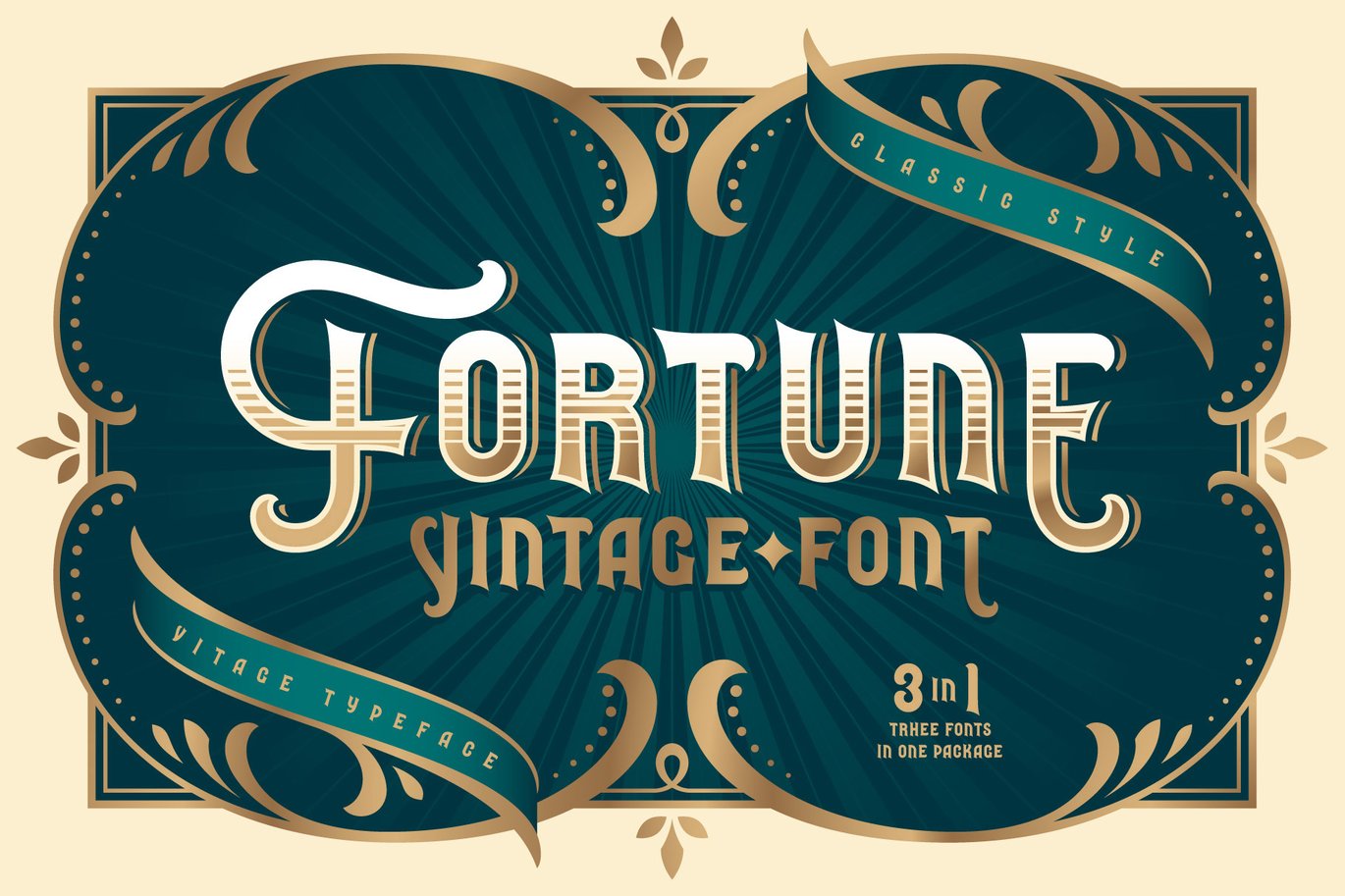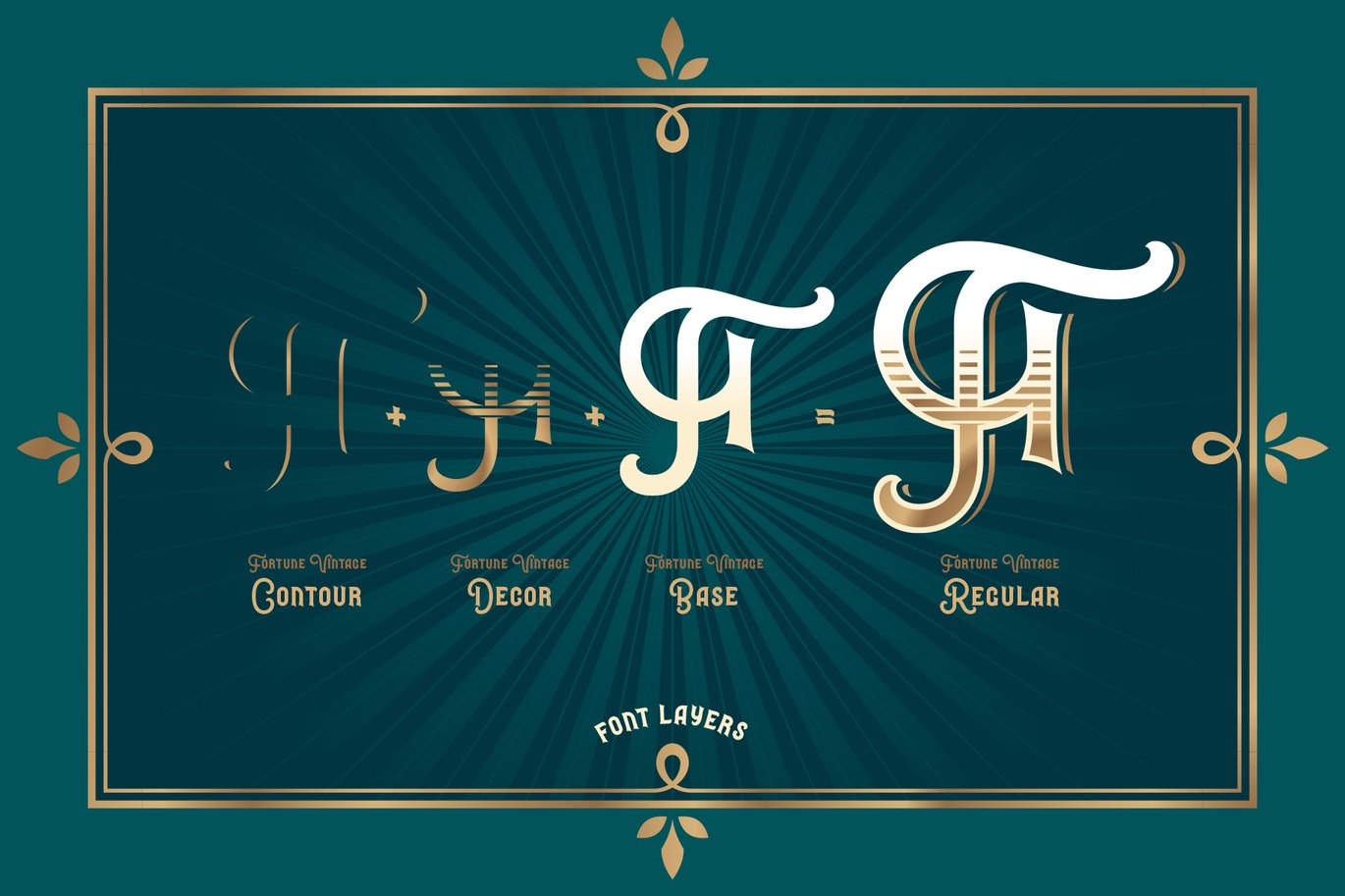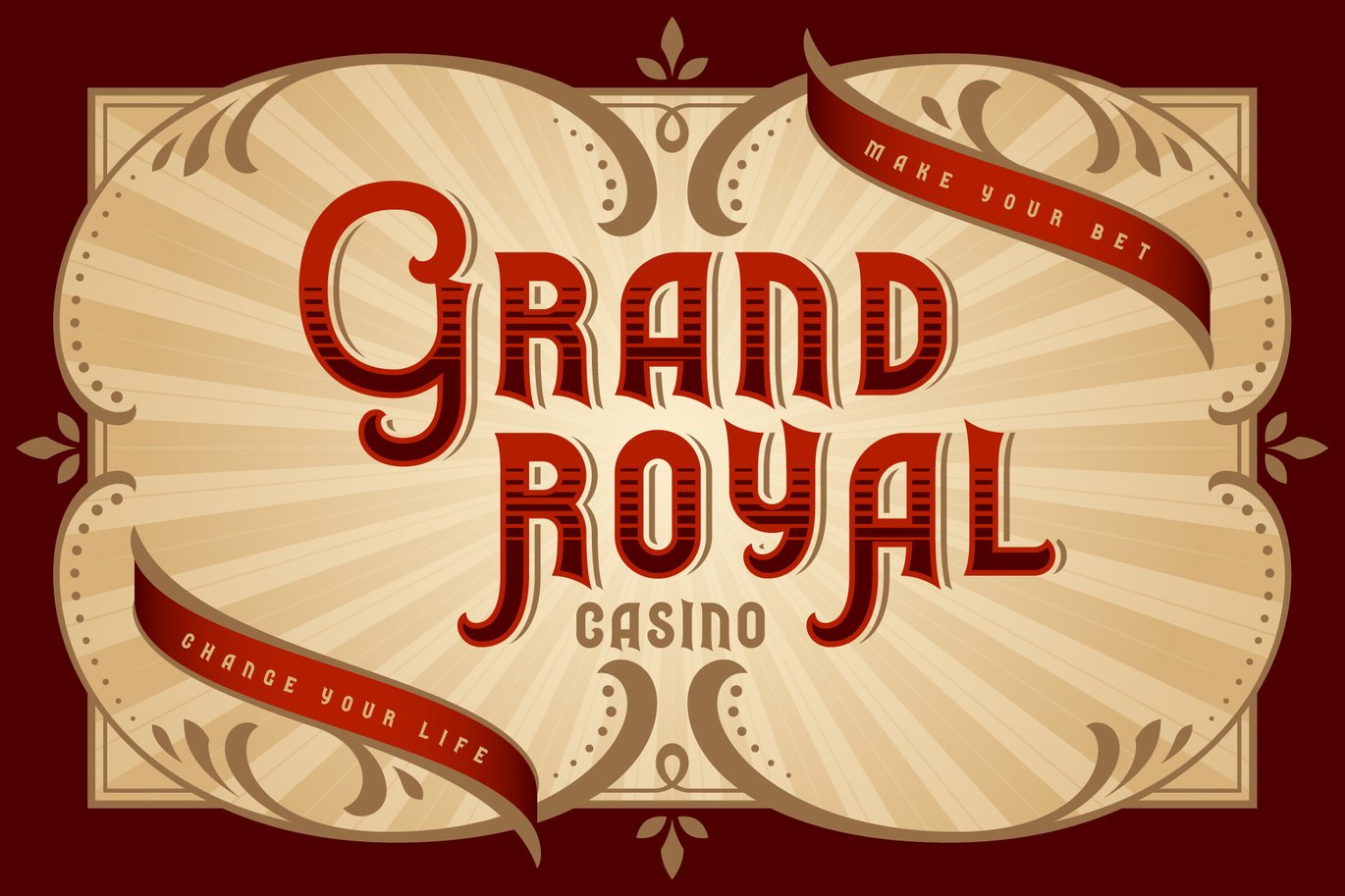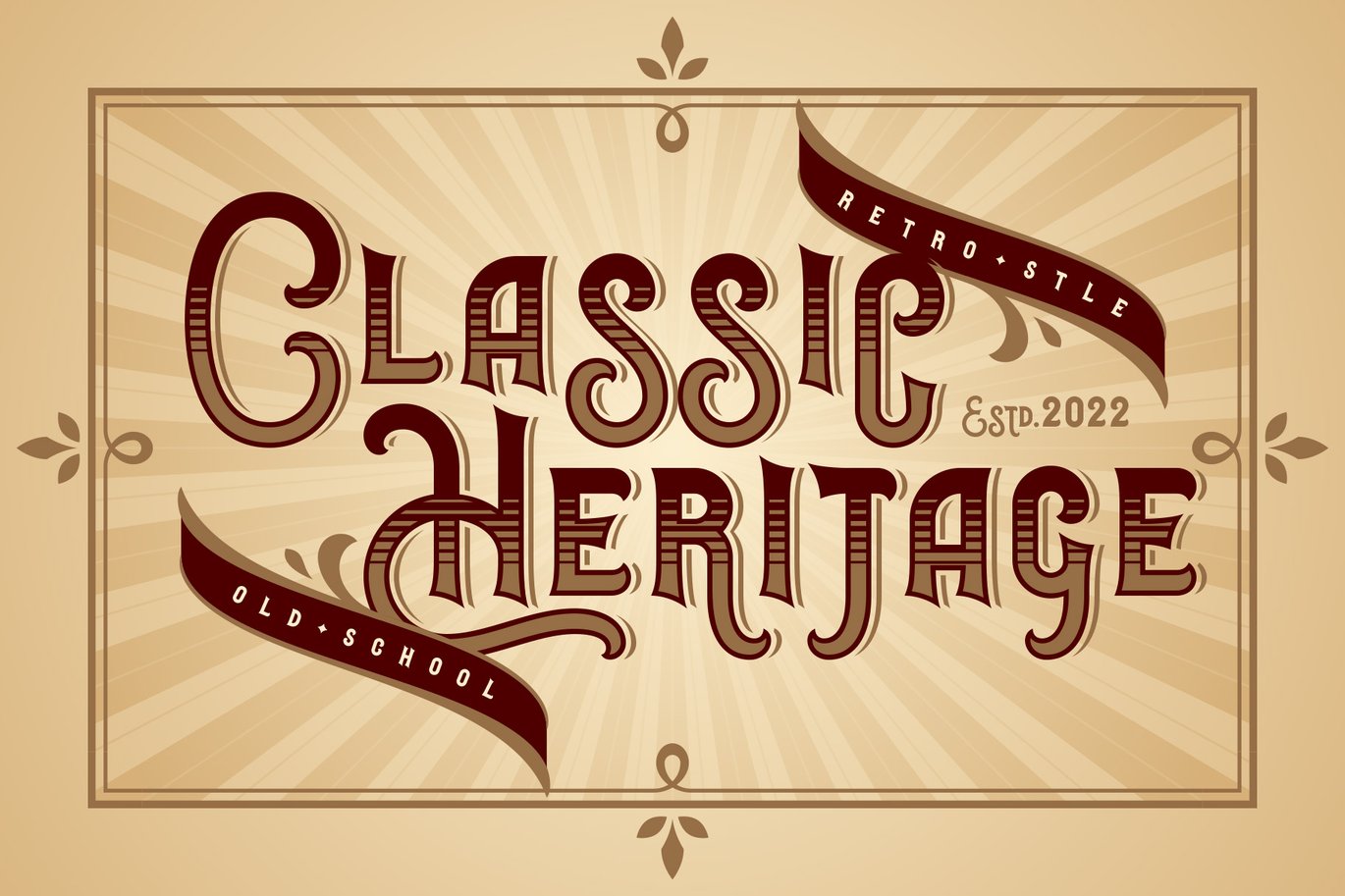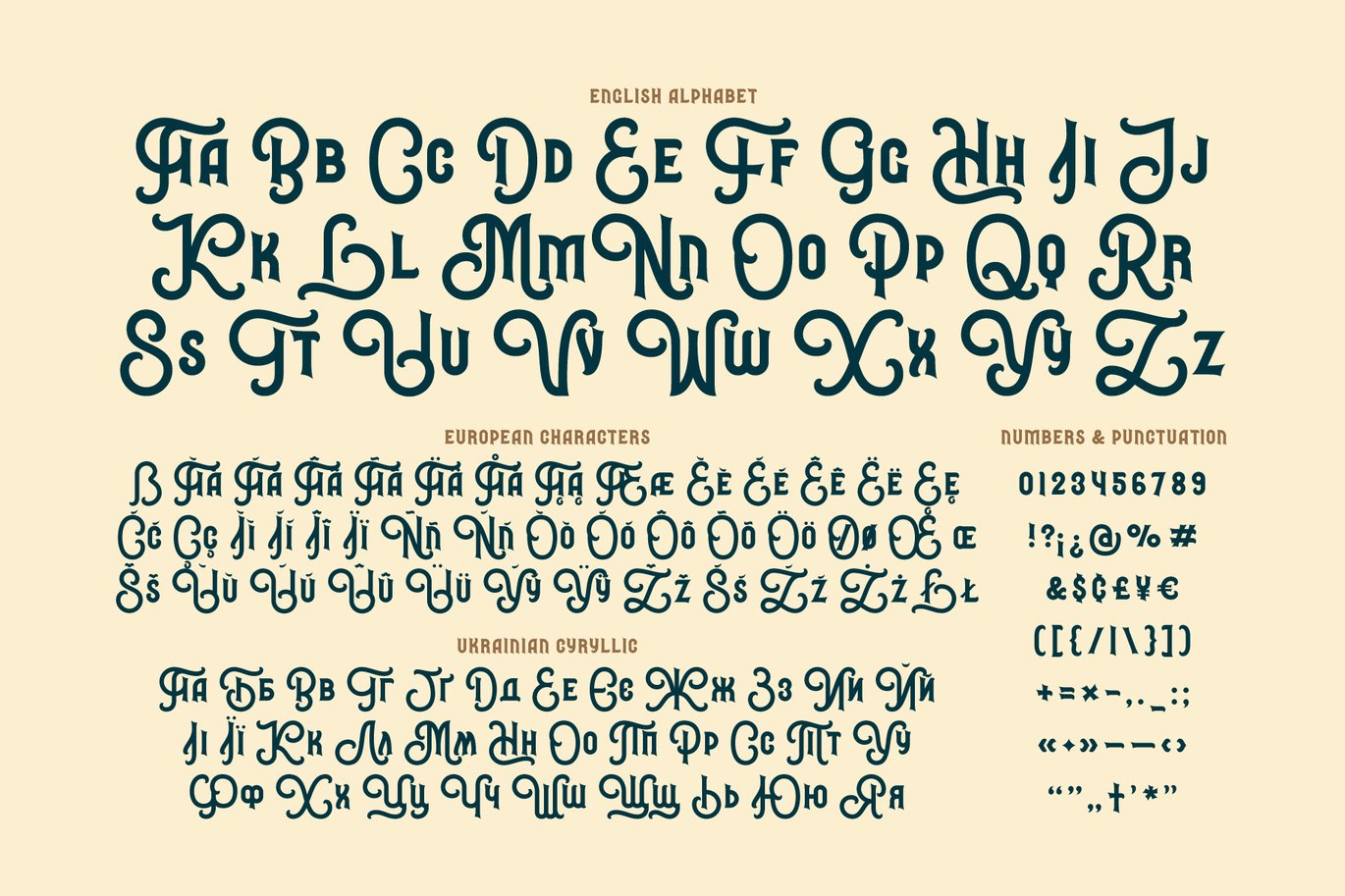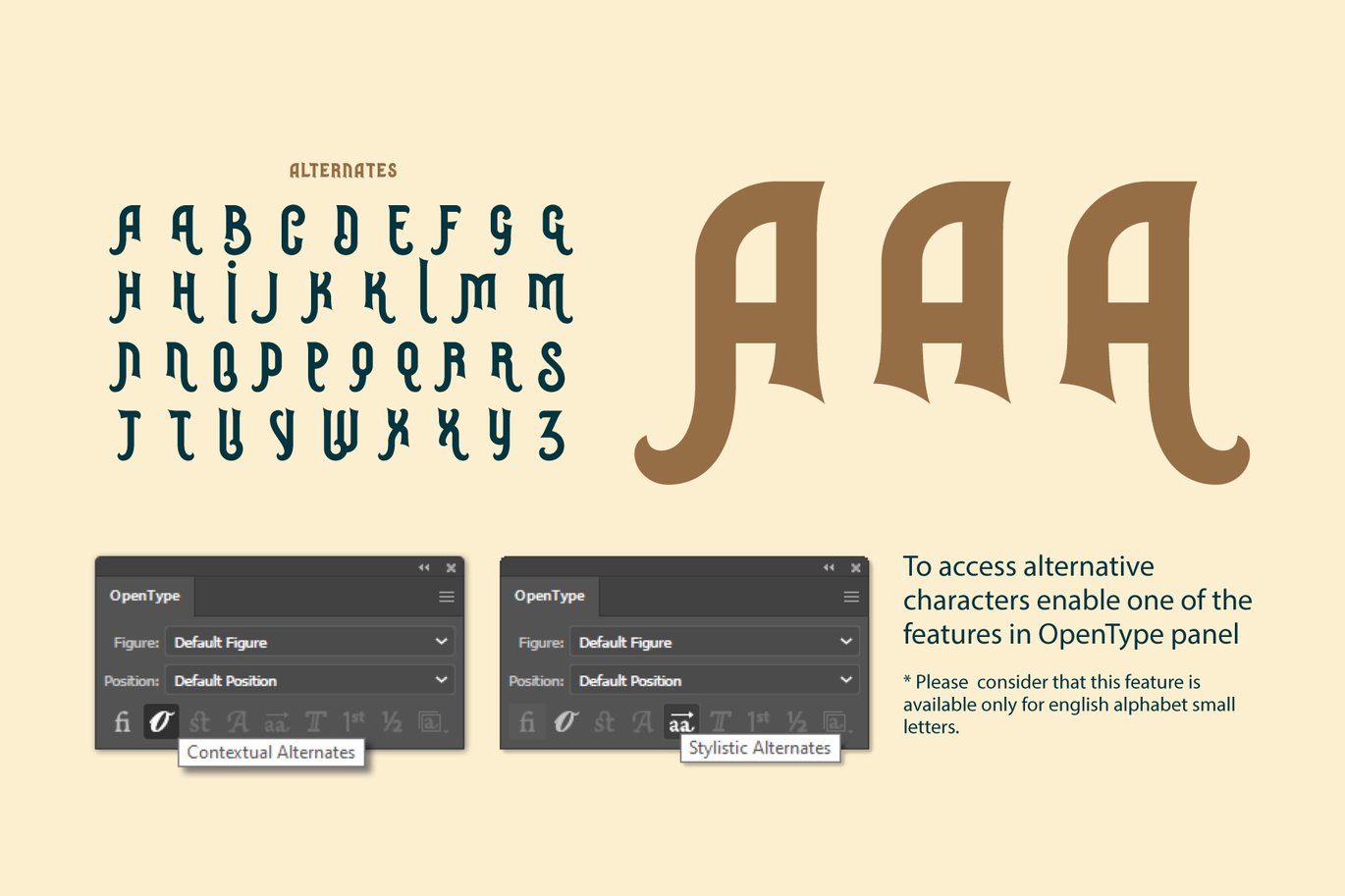
Fortune Vintage Font
Introducing Fortune Vintage Font set. This typeface has an old school look with classic western shapes. Fortune Vintage Font has three “layers” for more convenient recoloring. All of the small letters has one or two alternates with bottom expanded shape*. Fortune Vintage Font supports most of the European languages and also has Ukrainian Cyrillic characters.